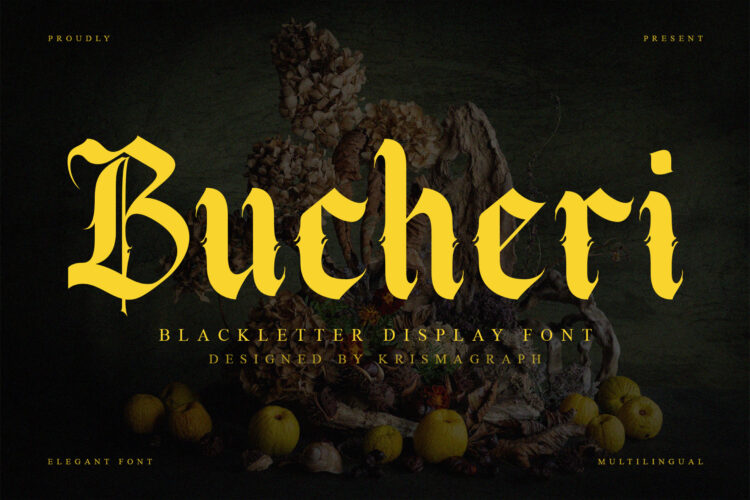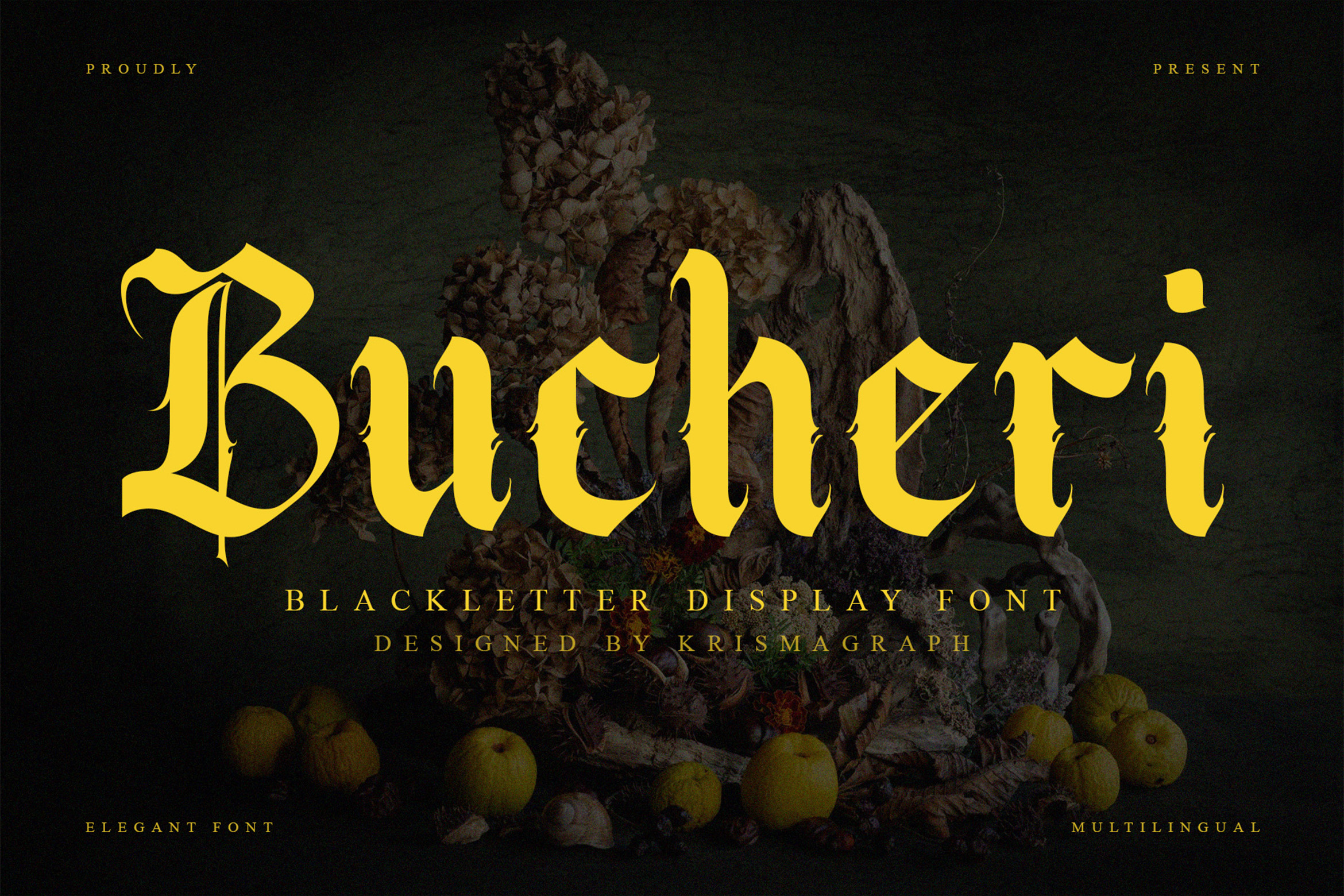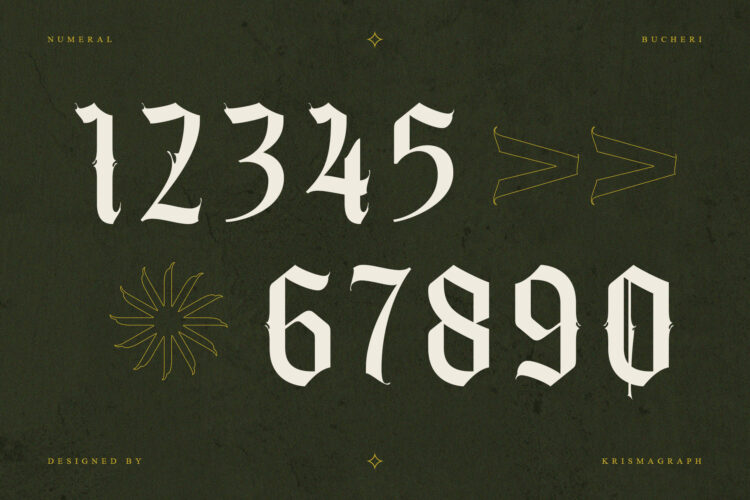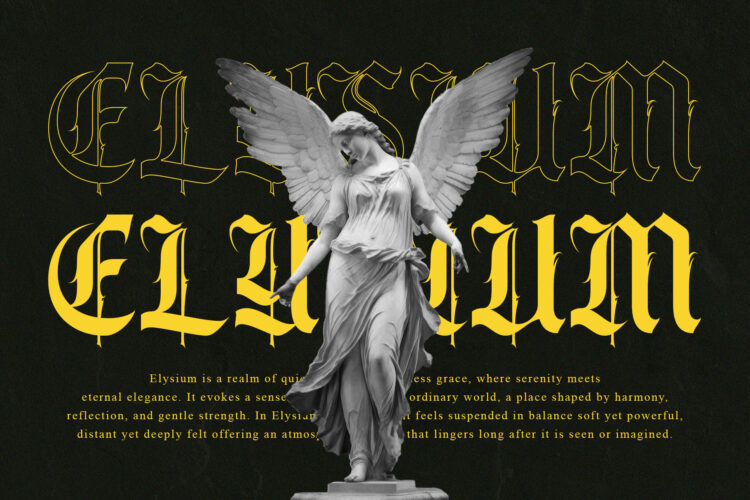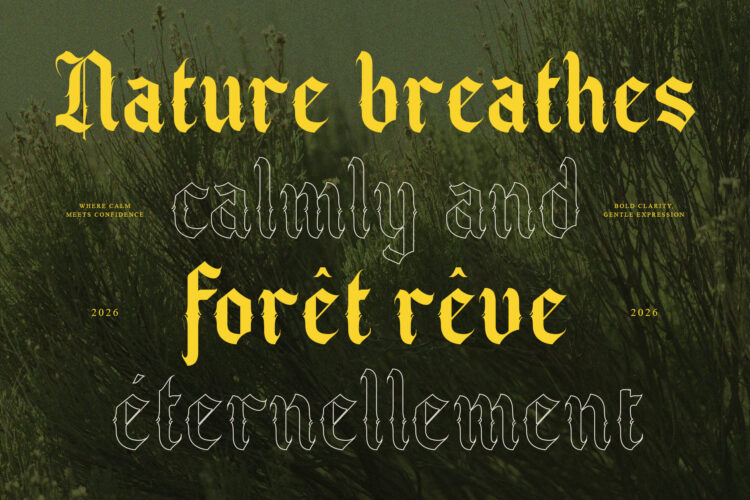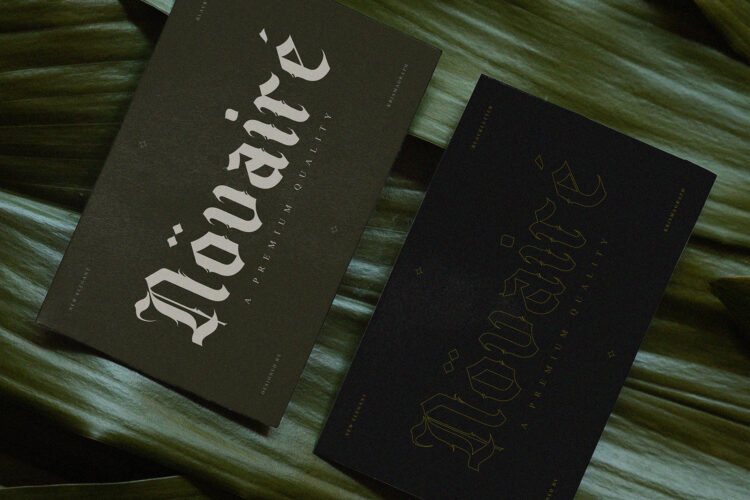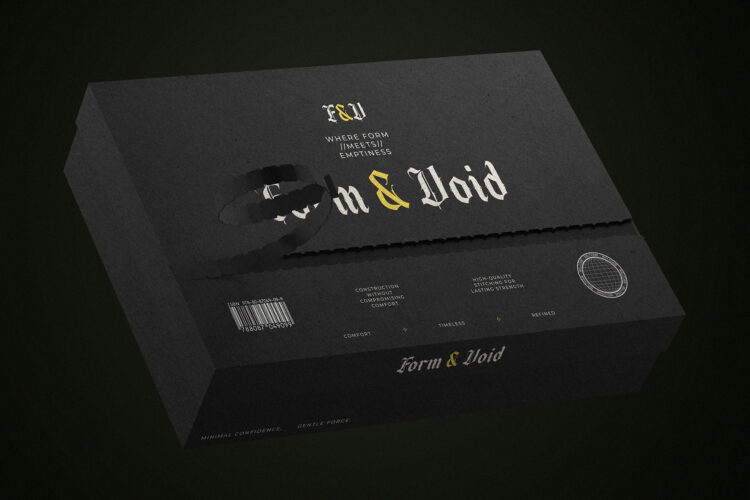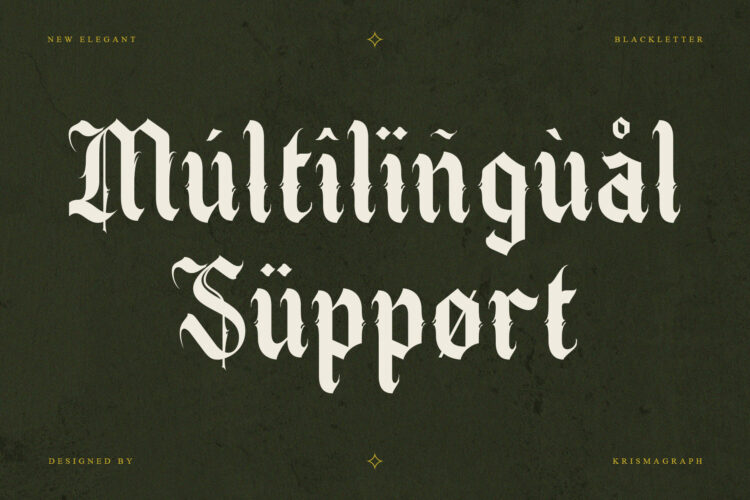
Bucheri is a bold blackletter display font inspired by classic gothic letterforms with a strong, modern presence. Its sharp edges, dramatic strokes, and ornamental details create a powerful visual impact while maintaining clarity and structure.
This font is well suited for logos, posters, branding, tattoo, album artwork, packaging, headlines, signage, and bold visual statements. Bucheri delivers a distinctive personality that commands attention and adds historical depth to contemporary designs.
Bucheri is designed for creatives who want a blackletter font that feels expressive, confident, and visually striking.
– Numbers, fractions
– Punctuation and symbols
– Alternates
– Ligatures
– Multilingual support
Bucheri Typeface